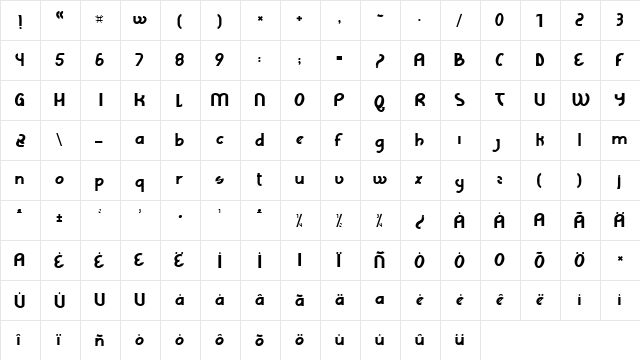
WFF LAGE grafica FGM Normal Regular Font Preview
WFF LAGE grafica FGM Normal Regular
Design Context for WFF LAGE grafica FGM Normal Typeface
WFF LAGE grafica FGM Normal is a composed and adaptable typeface that performs quietly and consistently across a wide range of design contexts.